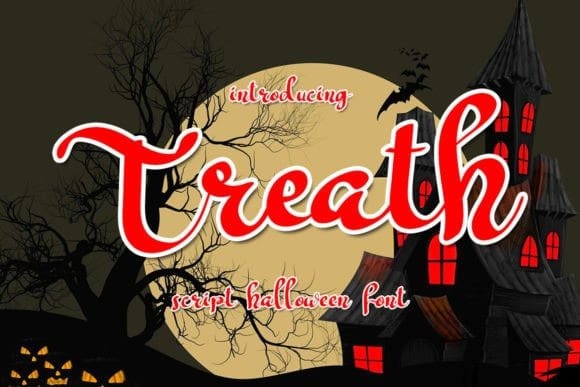
Treath Script Font
Treath Script Font is a beautiful and fun hadwritten font. It is fresh, clean, and elegant. This font will look amazing in a great number of projects, both formal and informal. It will add an incredibly joyful touch to your designs.